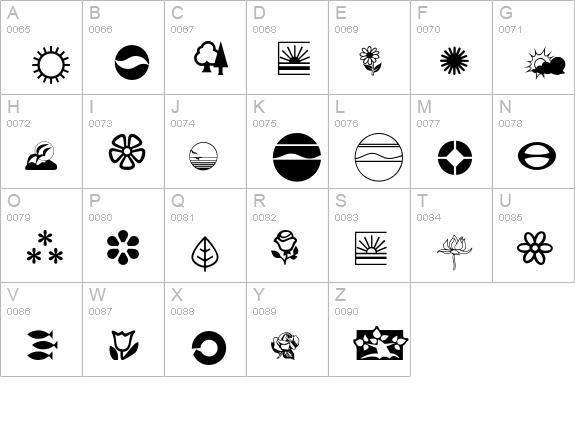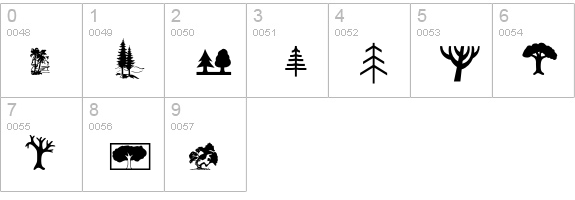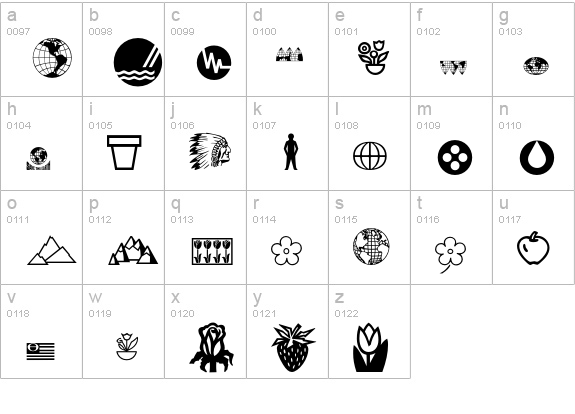
EcologyP01 Font Details
EcologyP01 is a stunning and versatile font that embodies the essence of nature and the beauty of the environment. With its elegant and organic design, this font is perfect for any project that requires a touch of eco-friendly sophistication. The intricate details and graceful curves of EcologyP01 capture the harmony found in the natural world. Its unique letterforms are inspired by the delicate balance of flora and fauna, creating a visual representation of the interconnectedness of all living things. Whether you're designing a logo for an environmental organization, creating a nature-inspired invitation, or adding a touch of organic elegance to your website, EcologyP01 is the perfect choice. Its versatility allows it to seamlessly blend with various design styles, making it a go-to font for designers of all levels. Not only does EcologyP01 offer exceptional aesthetics, but it also comes with the added bonus of being free. Yes, you read that right! This stunning font is freely available to download at FontsMarket.com. Now, you can enhance your designs and convey your eco-conscious message without breaking the bank. So, why wait? Embrace the beauty of nature and elevate your designs with EcologyP01. Download this captivating font today from FontsMarket.com and let your creativity blossom.